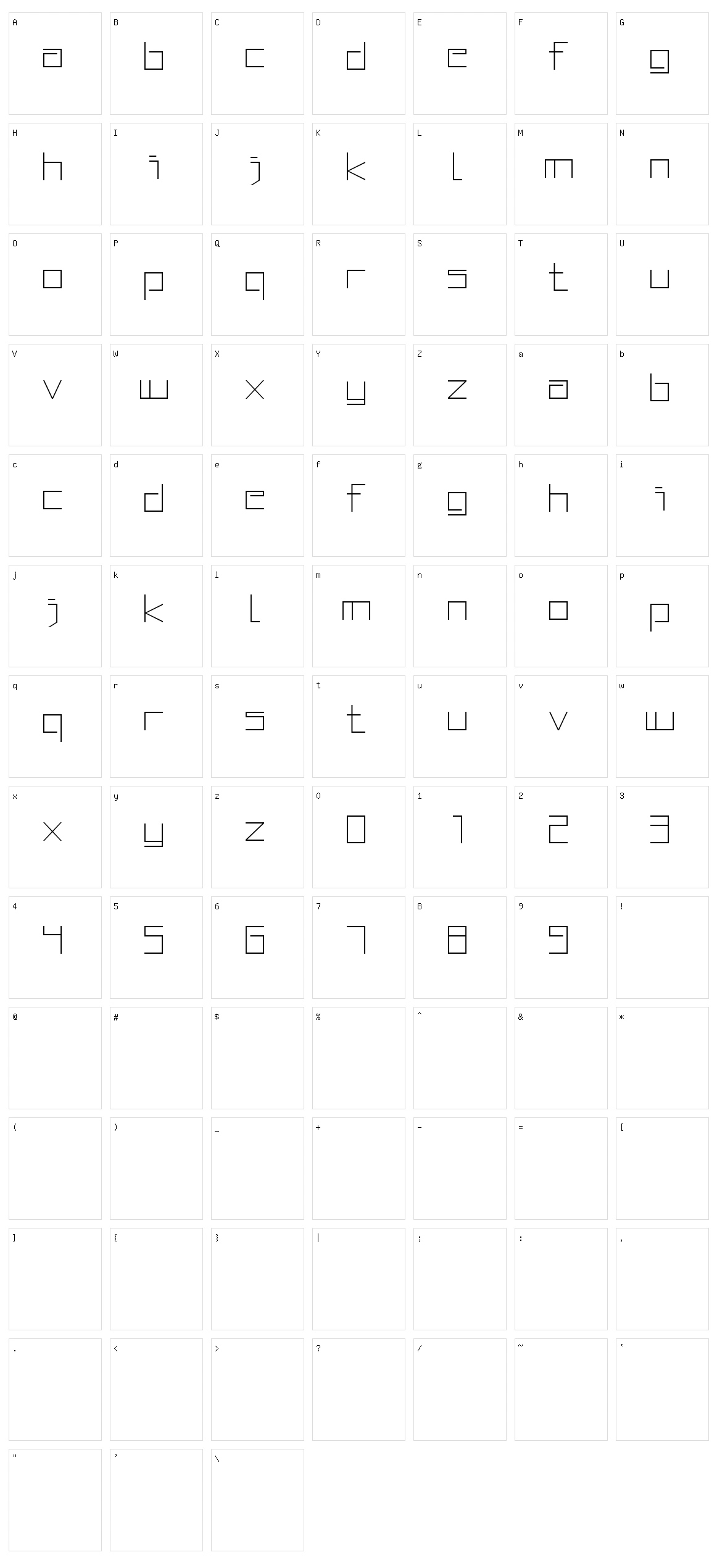
The free font Squared Display is carefully designed by Vikas Kumar, showcasing a thoughtful balance of creativity and usability and falls under the Square font style. When you download the ZIP file, it contains only 4.81 KB of font files, making it lightweight and quick to download. Please review the license details below to understand permitted usage and distribution rights. If license information is not available, we recommend using this font for personal projects only or contacting the author directly for commercial usage permissions.